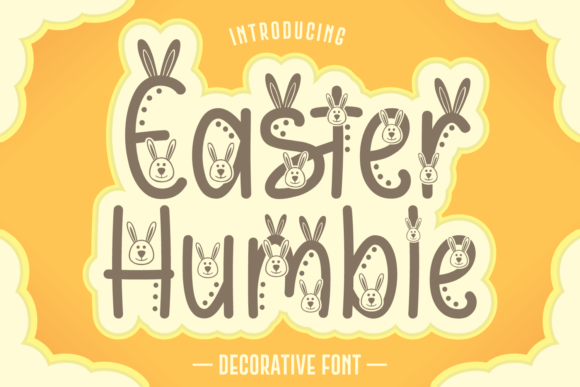
The Sweetest Inspiration for Your Easter Designs
As a designer, there’s nothing quite like the thrill of discovering a new font that sparks creativity and brings a smile to your face. For me, that moment came when I stumbled upon the adorable Easter Humble Font. Its playful bunny motifs and whimsical charm instantly inspired a flood of Easter-themed ideas, from colorful cards to adorable kids’ clothing designs.
Easter Humble Font is a creative decorative font that brings the Easter bunny to life, with cute little bunny heads popping out from every character. Whether you’re designing Easter cards, stickers, wall art, or invitations, this font is the perfect addition to your creative toolkit. With Easter Humble Font, you can add a touch of whimsy and personality to your designs, making them truly stand out.
As a designer, you know how valuable it is to have a unique and versatile font that can elevate your Easter designs. Easter Humble Font is a must-have for any creative looking to add a little extra magic to their projects.
- Font Family: Easter Humble is a sans-serif font family designed to evoke a sense of humility and simplicity.
- Unique Characteristics: Easter Humble features a distinctive rounded corner design, making it easily readable and visually appealing.
Overall, I found the Easter Humble Font to be a charming and playful addition to any design project. ✨ The font’s rounded edges and soft curves give it a friendly and approachable feel, making it perfect for projects that require a touch of whimsy.
One of the things that stands out about the Easter Humble Font is its excellent legibility, even at smaller font sizes. This makes it a great choice for projects that require a lot of text, such as blogs or social media posts. ✨ The font also has a nice range of weights and styles, from light to bold, which adds to its versatility.
- May not be suitable for projects that require a more formal or serious tone
- Can look a bit childish if not used carefully
- May not be as versatile as more modern font designs
Overall, I would recommend the Easter Humble Font for projects that require a touch of personality and playfulness. However, it may not be the best choice for projects that require a more formal or serious tone. With some careful usage, this font can add a lovely touch to your designs. ⚠️ Just be mindful of its limitations and use it thoughtfully.
Tip: Use Easter Humble Font for titles and headings to add a touch of elegance and sophistication to your design.
Tip: Use Easter Humble Font in conjunction with other elegant fonts to create a unique and sophisticated look.
Tip: Use Easter Humble Font to add a touch of elegance and sophistication to your presentations or documents.
Easter Humble Font is ideal for:
- Formal events and galas
- High-end marketing materials
- Luxury brand identities